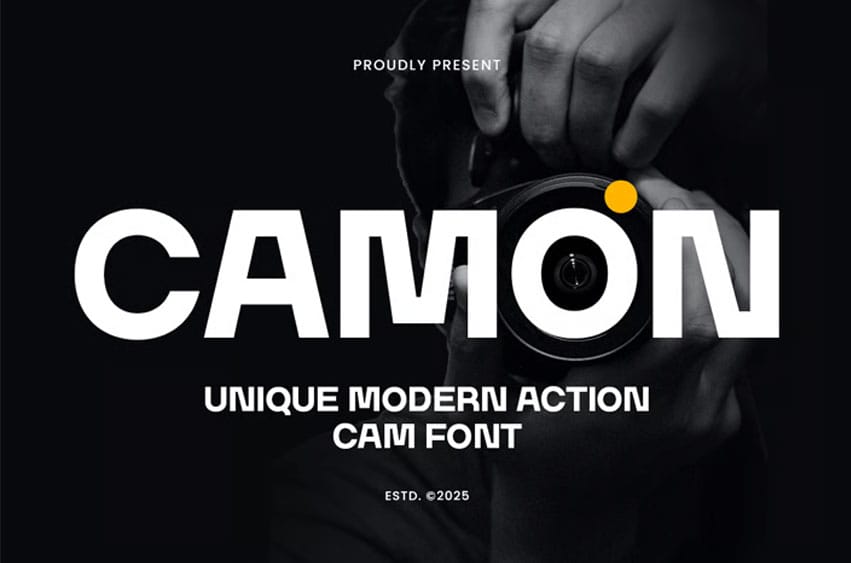
Camon Font is a unique camera photography logo font designed for photographers, creatives, and visual artists who want to make a bold statement. With its sleek lines, modern shapes, and subtle nods to the world of photography, CAMON is the perfect font for any photography logo or brand identity.
Whether you’re designing a logo for a photography studio, a creative agency, or a personal brand, CAMON offers a stylish, minimalist design that enhances the visual appeal of your brand. The unique character shapes and subtle camera-inspired details ensure your logo will stand out, leaving a lasting impression on your clients and audience.
CAMON – Unique Camera Photography Logo Font Features
- Unique camera-inspired letterforms
- Ideal for photography studios, creative agencies, and branding
- Includes uppercase, lowercase, numerals, and punctuation
- Clean, minimalist, and modern design
- OpenType features for advanced typographic styling
Create the perfect visual identity for your photography brand with CAMON – a unique font for the creative professional.